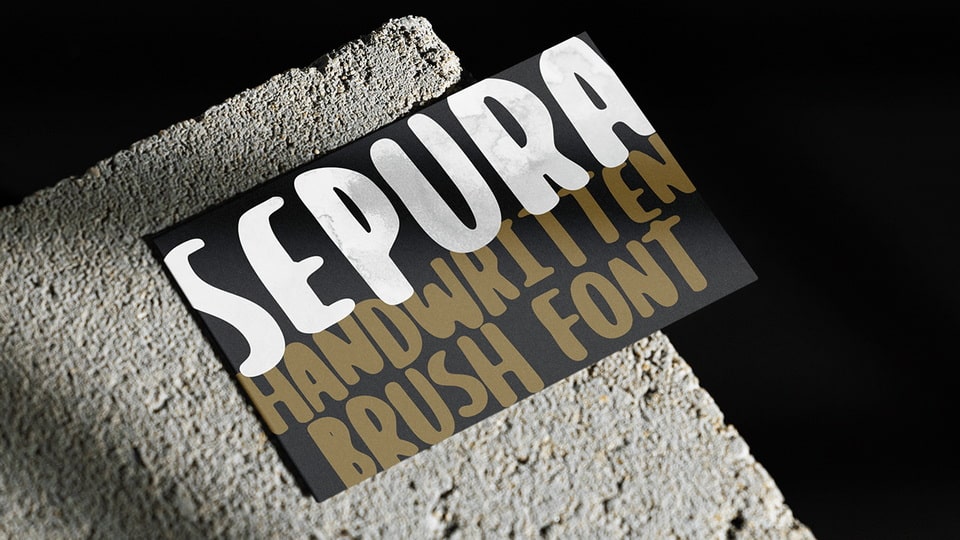
Download Sepura font, a handwritten style typeface based on brush strokes that looks dynamic, imperfect, random and casual. With the automatic randomization feature, Sepura gives a natural feel like real handwriting.
Designer: Locomotype